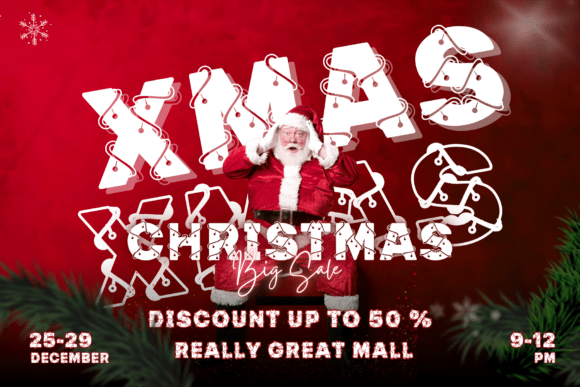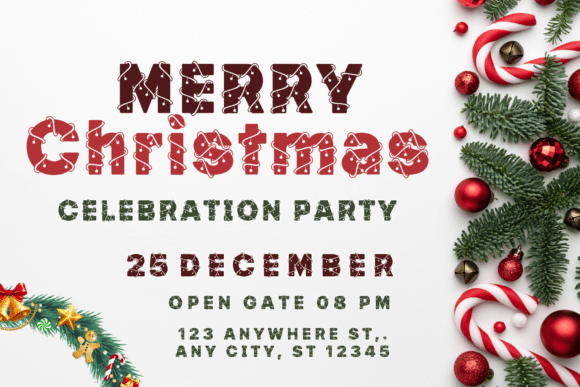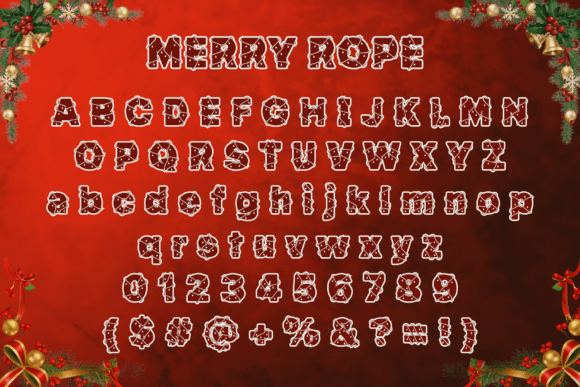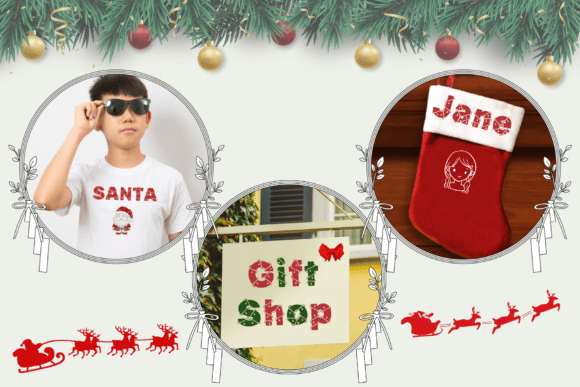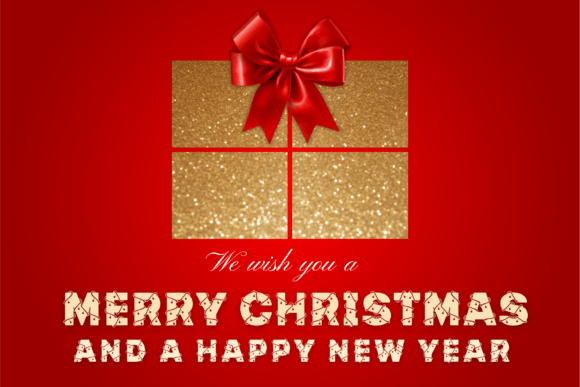
Introduction to Merry Rope Font
MERRY ROPE is a decorative font inspired by “Christmas string lights and light bulbs.
” It exudes warmth, fun, and a festive atmosphere This font is perfect for Christmas and winter-themed designs, including greeting cards, promotional banners, posters, decorations, online stores, gift packages, and DIY projects.
Key Features of Merry Rope Font